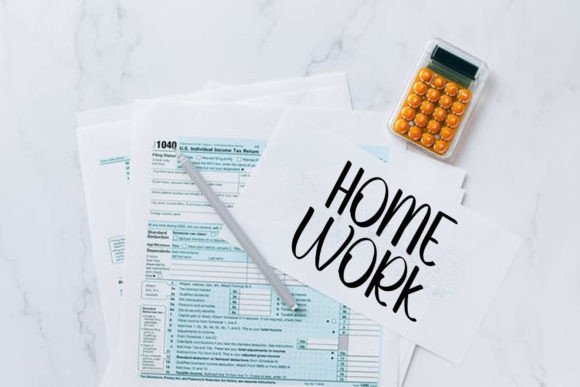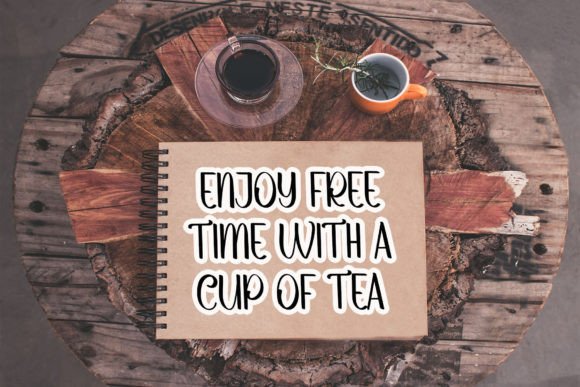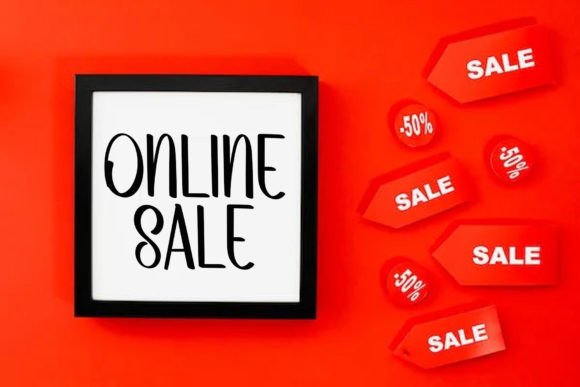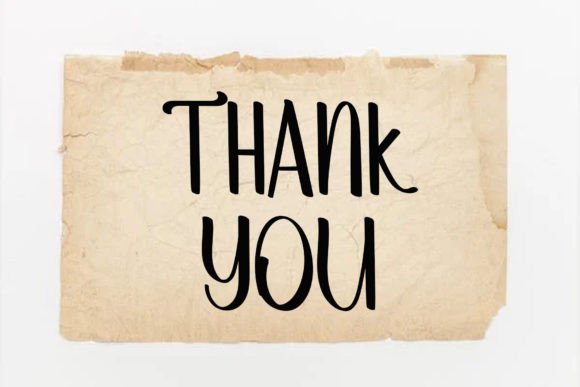
The Blue Beach Font: A Designer’s New Best Friend
I’ll never forget the time I was working on a beach-themed project for a client, and I just couldn’t find the right font to capture the laid-back, coastal vibe I was going for. I scoured the internet, tried out font after font, but nothing seemed quite right. That was until I stumbled upon the Blue Beach font. ✨ It was love at first sight! The soft, flowing lines and unique character set instantly transported me to a sunny beach, and I knew I had found the perfect fit for my project.
So, what makes the Blue Beach font so special? Let’s dive in and take a closer look.
- ✨ Unique and distinctive character set: The Blue Beach font has a wide range of characters that can be used for all sorts of design needs, from crafting to digital art.
- ✅ Soft and flowing lines: The font’s gentle curves and strokes give it a natural, effortless feel that’s perfect for creating a relaxed, beachy vibe.
While the Blue Beach font is an amazing addition to any designer’s toolkit, there are a few things to keep in mind:
- ⚠️ Limited availability of certain characters: While the font has a wide range of characters, some users have reported that certain special characters or glyphs may not be available.
- 🤔 May require some experimentation to get the hang of: As with any new font, it may take some time to get used to the unique character set and styling options.
- Take advantage of OpenType features like glyphs and stylistic alternates to add extra flair to your designs.
The Story Behind Blue Beach Font
The Blue Beach font was created by a talented designer who wanted to capture the carefree spirit of a day at the beach. Inspired by the sound of the waves and the feel of the sand between her toes, she crafted a font that’s both beautiful and functional.
Q: What is the Blue Beach font?
The Blue Beach font is a beautiful and attractive font that’s perfect for creating a beachy vibe in your designs.